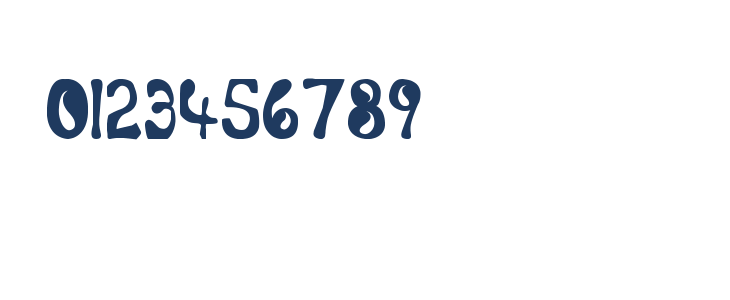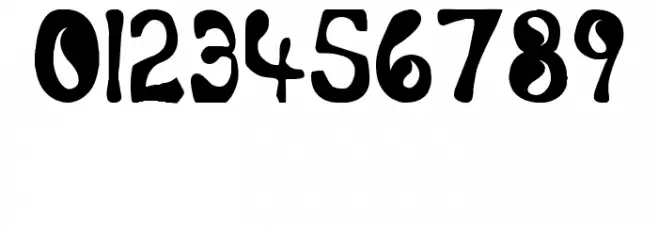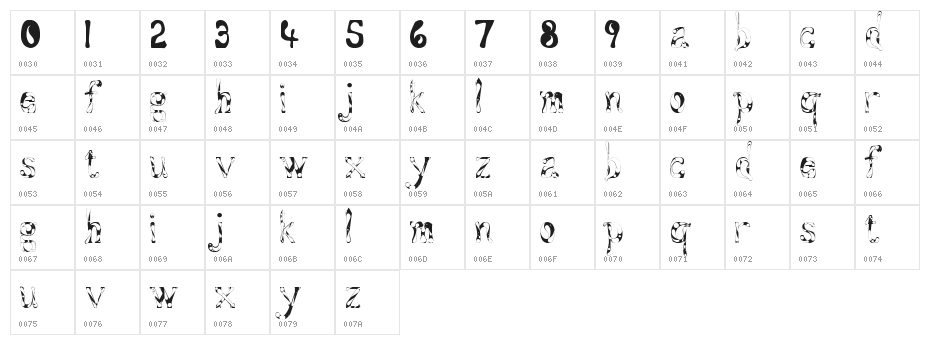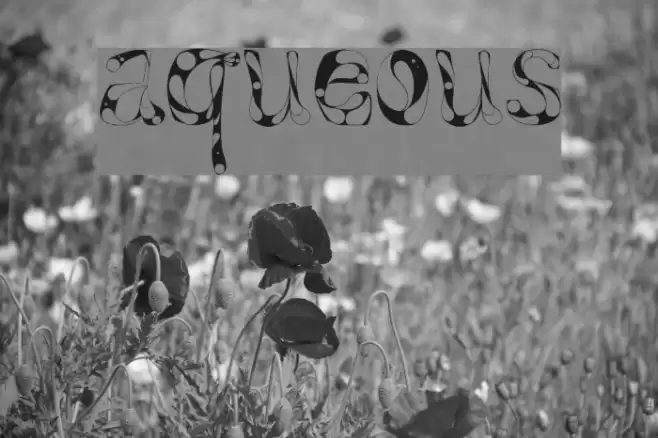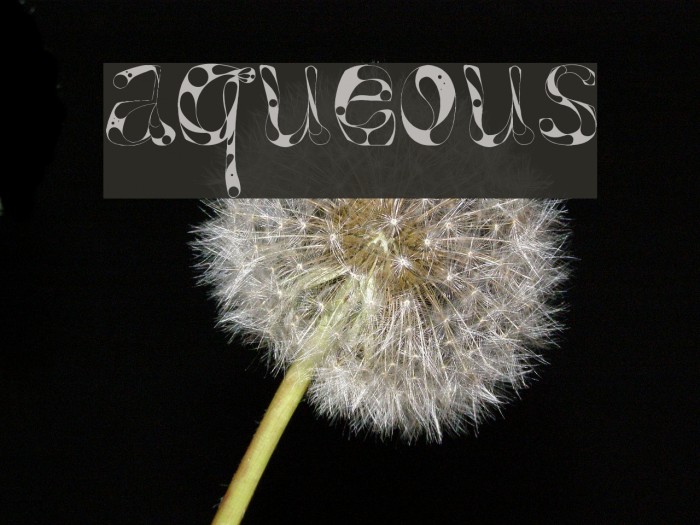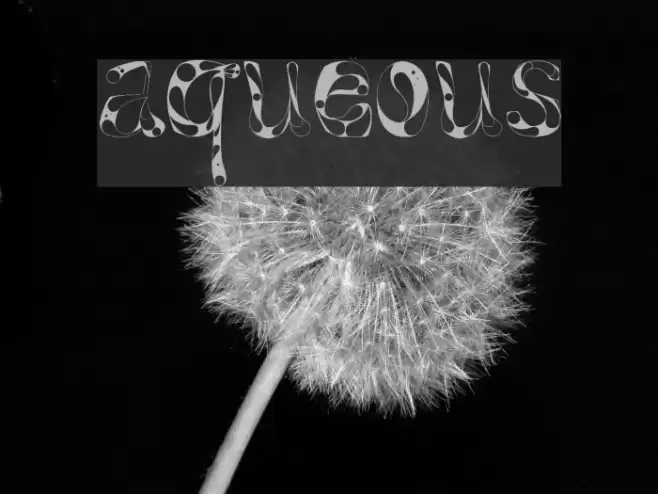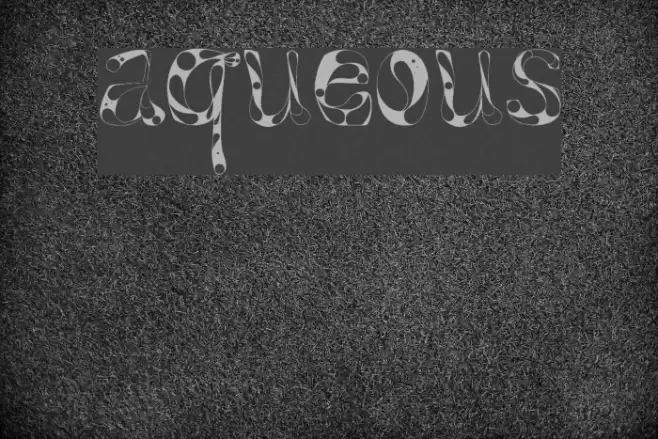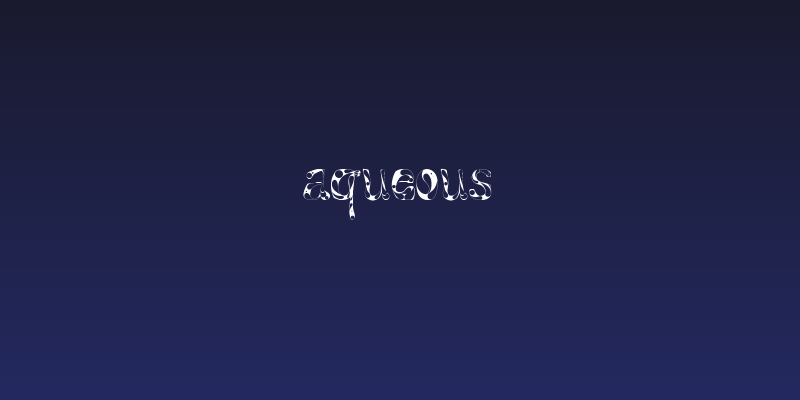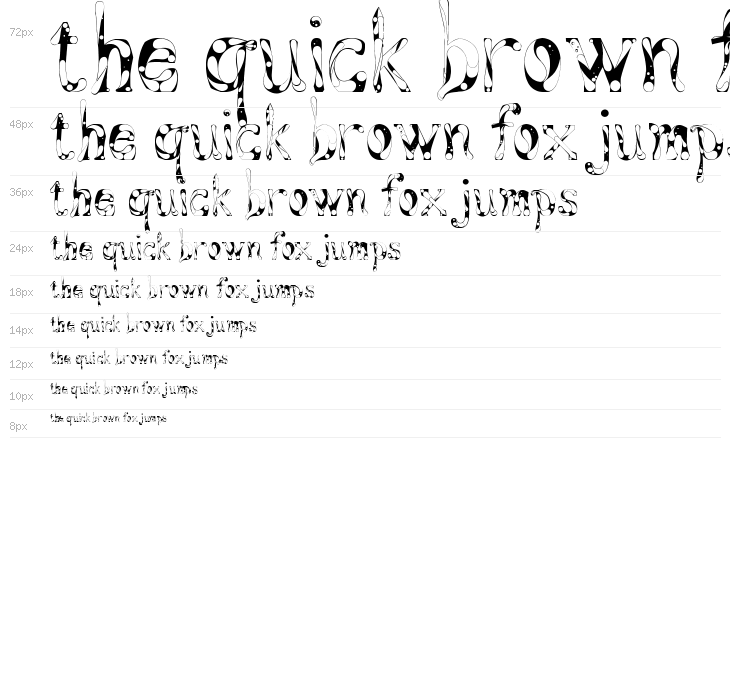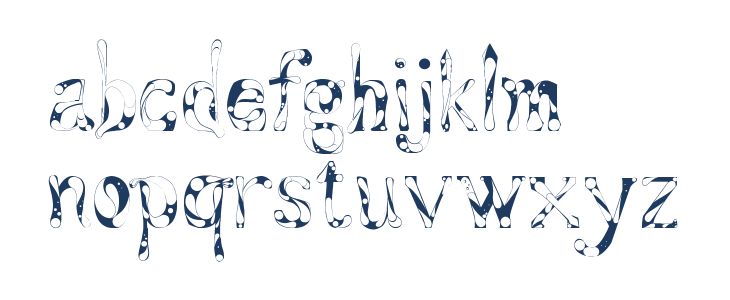
Aqueous Font
Aqueous Description
This font features a unique and artistic design that mimics the fluidity and movement of water. Each character is crafted with a blend of thick and thin strokes, creating a dynamic and flowing appearance. The letters are adorned with bubble-like patterns, adding a playful and whimsical touch. This font stands out with its decorative style, making it ideal for creative projects that require a distinctive and eye-catching typeface. The overall look is both modern and artistic, suitable for designs that aim to convey a sense of fluidity and creativity.
| Use Case | Headlines, Artistic designs, Branding |
| Proposed Projects | Ideal for creative projects such as posters, album covers, and artistic branding. |